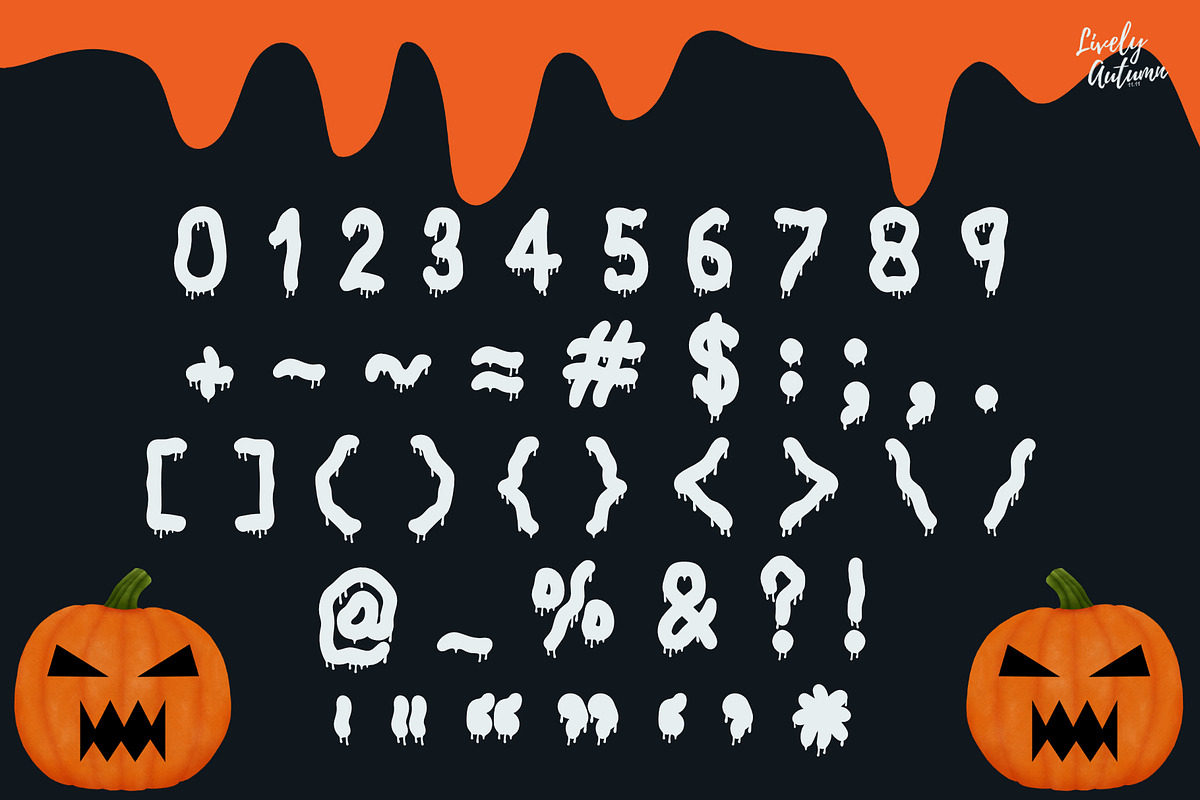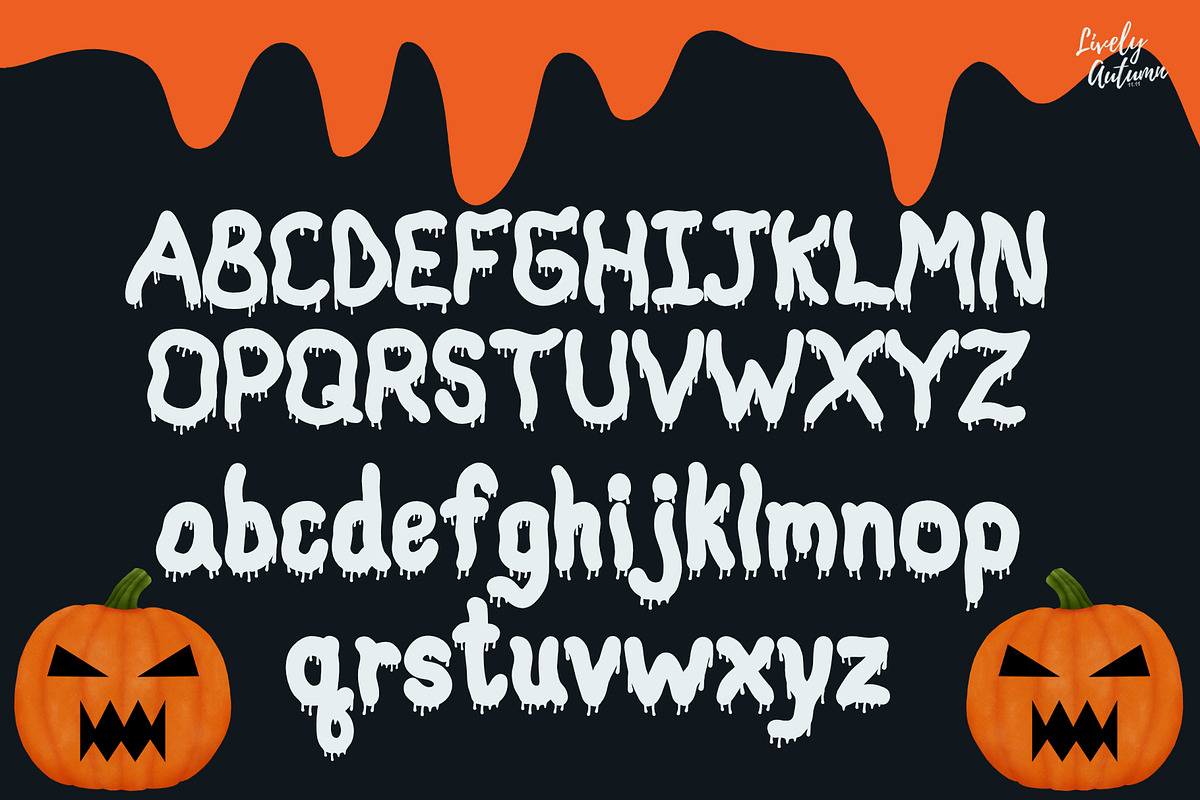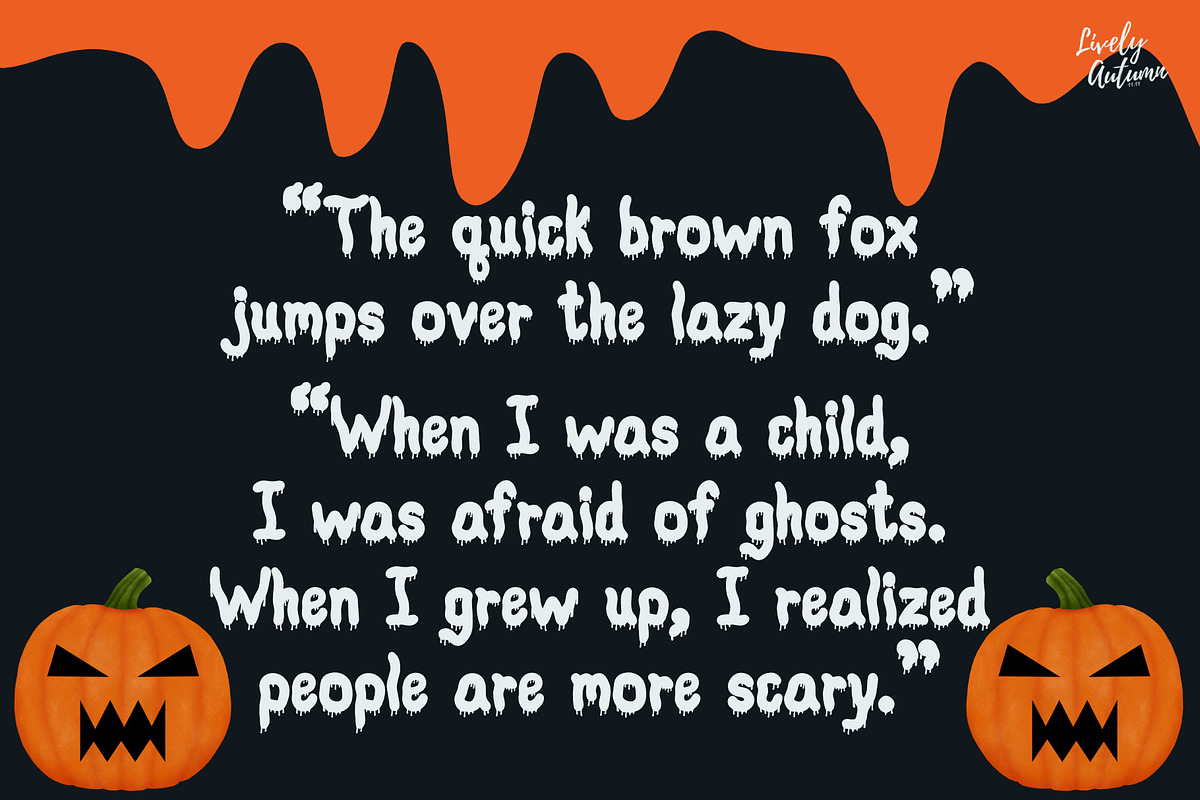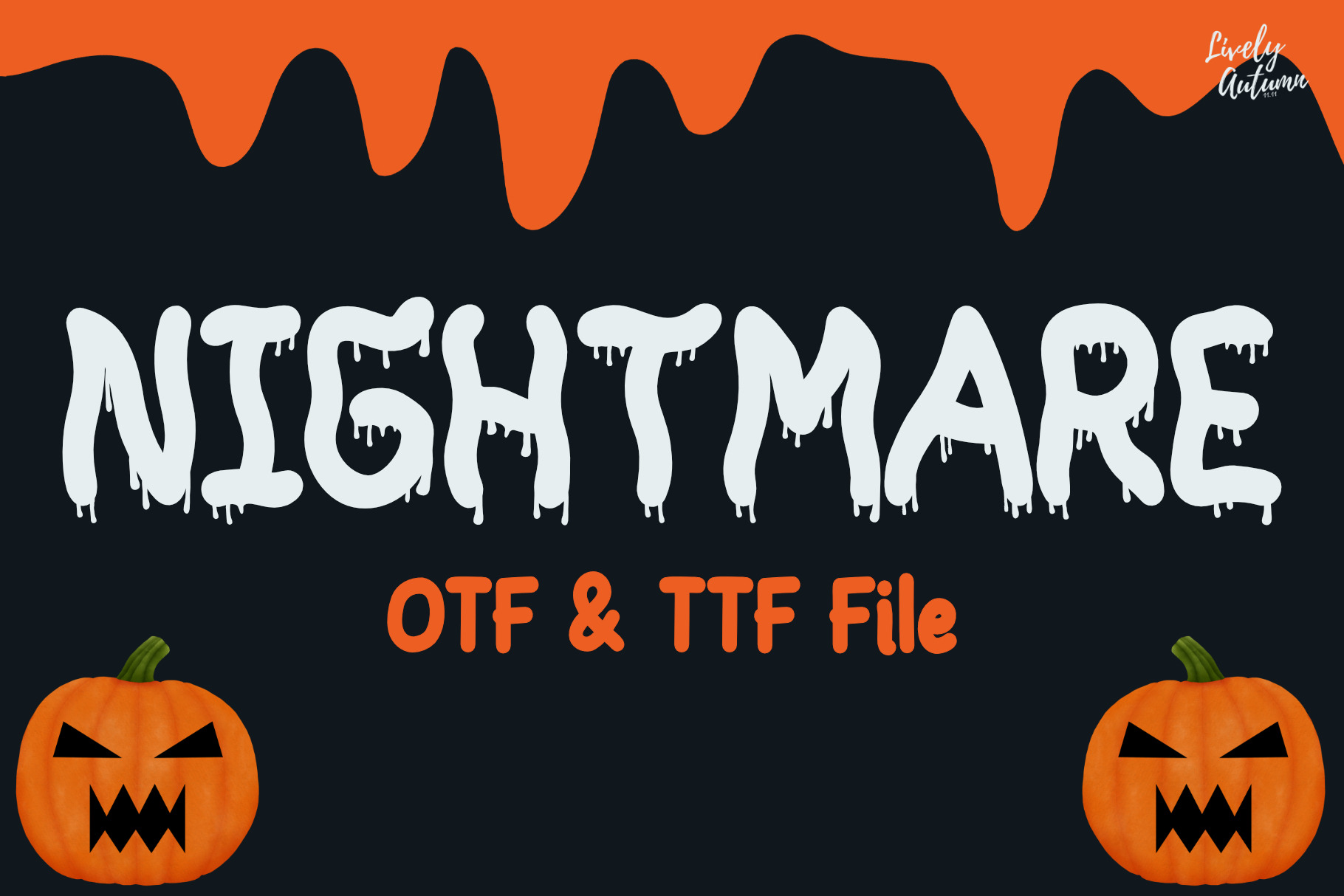
Nightmare | Blood dripping Font
Nightmare Font is a shaky handwritten font with blood dripping out from each letter. Perfect for your Halloween theme project, personal projects, and various projects. From invitations to posters, social media graphics, journals, and much more.
- Font includes: uppercase, lowercase, numbers, and punctuation.